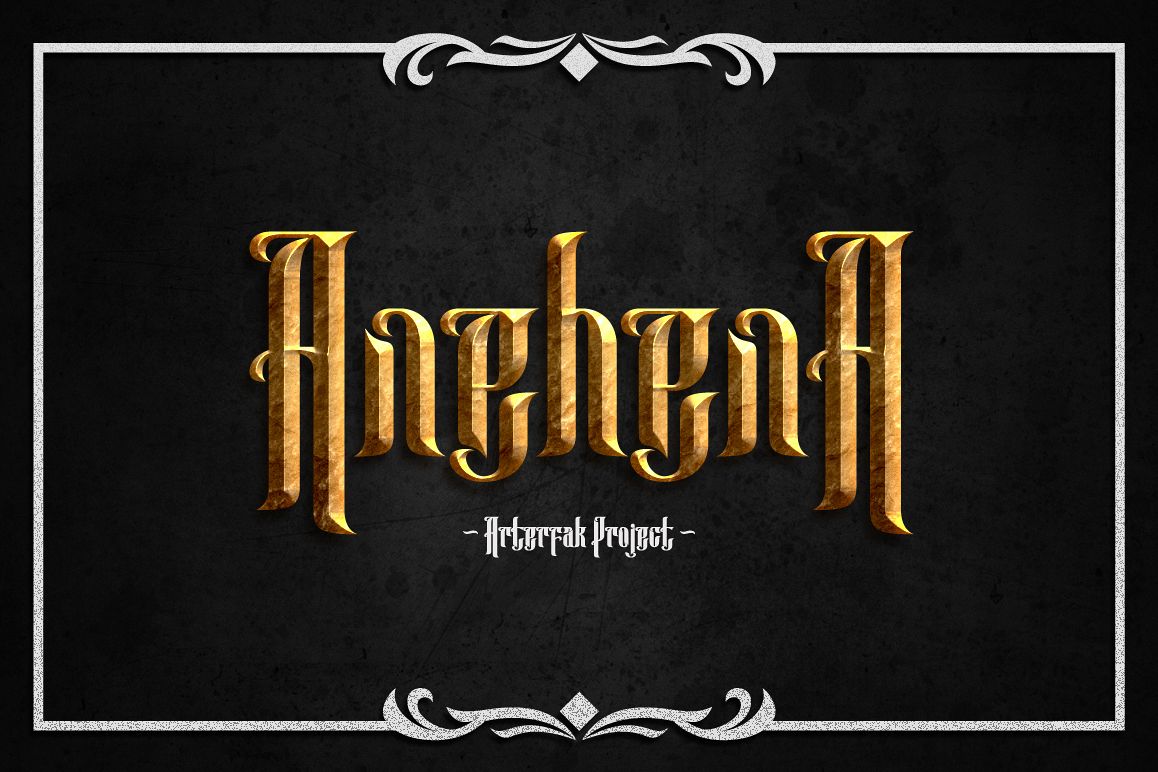
Anehena Typeface
The new blackletter named 'Anehena', The abstract-ornamental typeface
for you who interesting in abstract taste. Comes in regular and italic.
Very recommended for your headline, title or display. In your flyer,
movie and music poster or temporary logo.